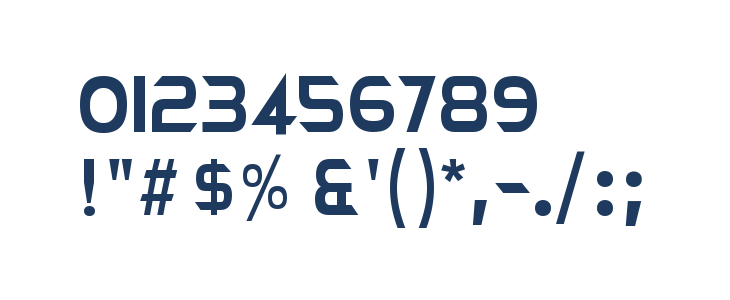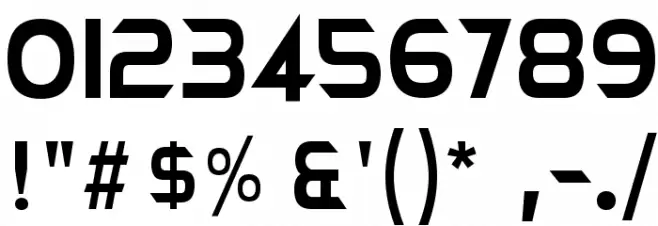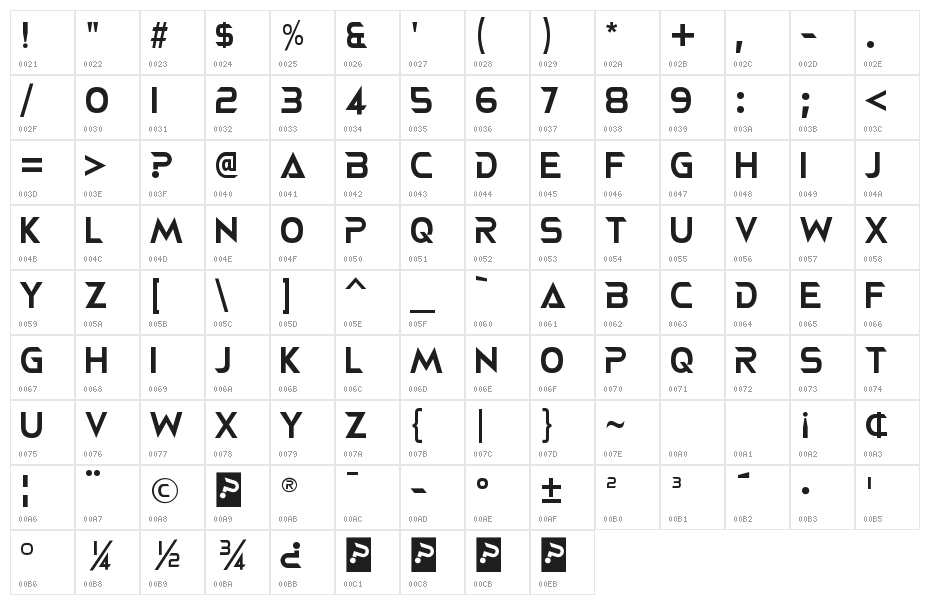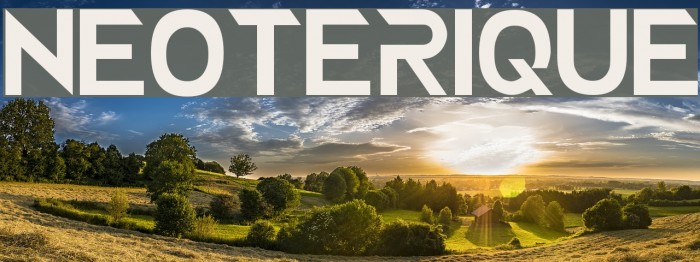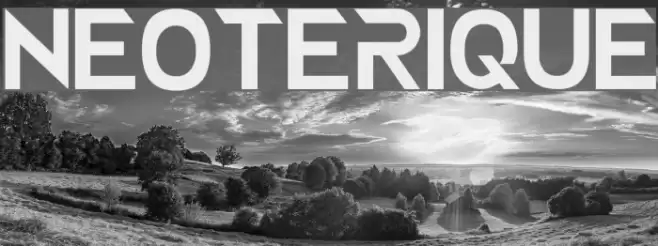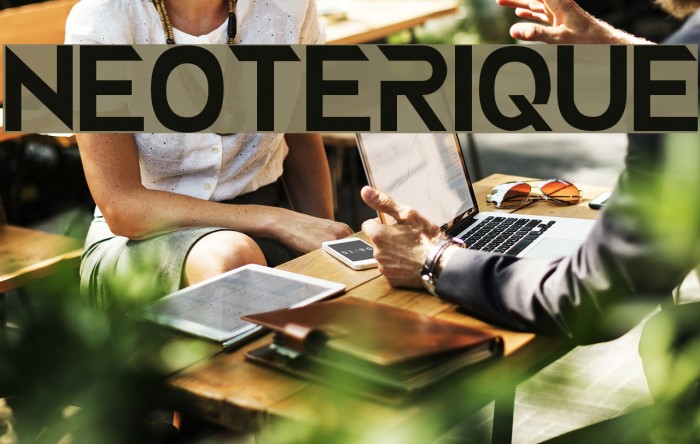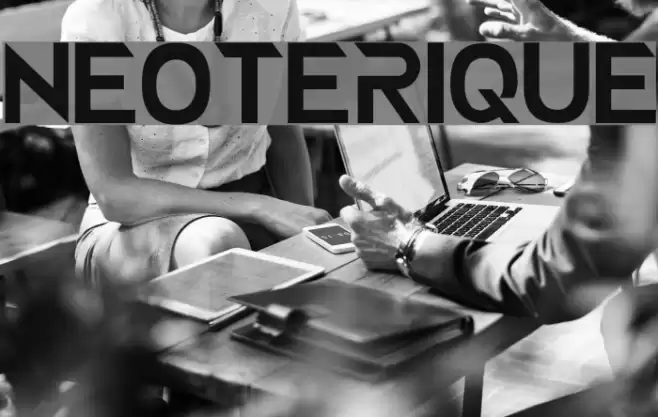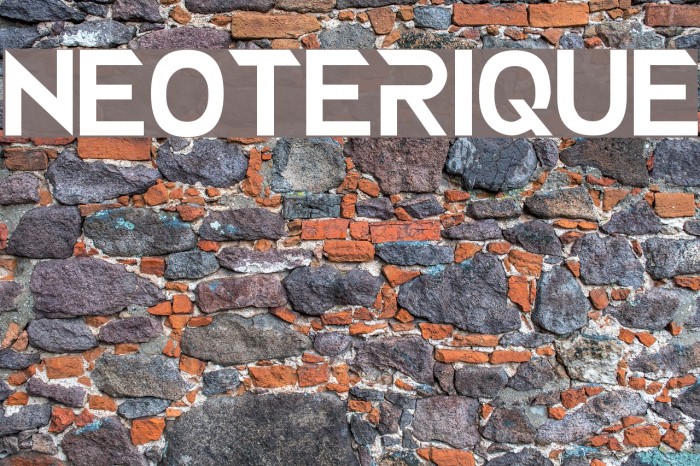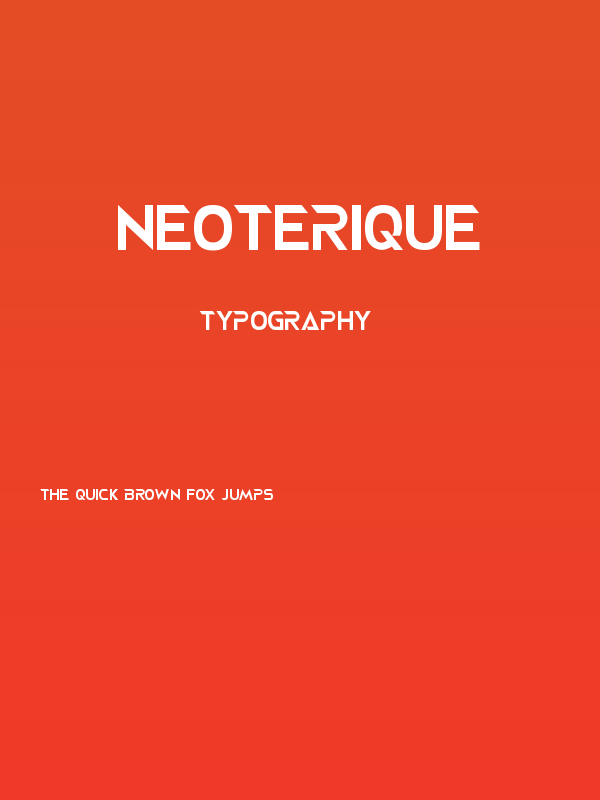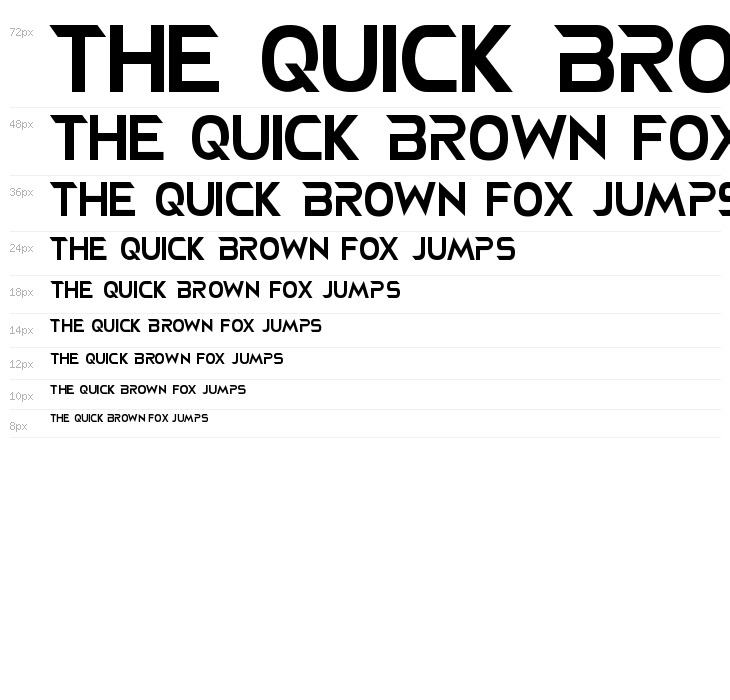
NEOTERIQUE Font
NEOTERIQUE Description
This font features a bold and futuristic design, characterized by its geometric shapes and sharp angles. The uppercase letters are distinct with a modern aesthetic, while the numbers and special characters maintain a consistent style that complements the overall look. The font's structure is clean and precise, making it suitable for projects that require a contemporary and edgy feel. Its unique style is ideal for capturing attention and conveying a sense of innovation and forward-thinking.
| Proposed Projects | Ideal for technology branding, sci-fi movie posters, video game titles, and modern advertising campaigns. |